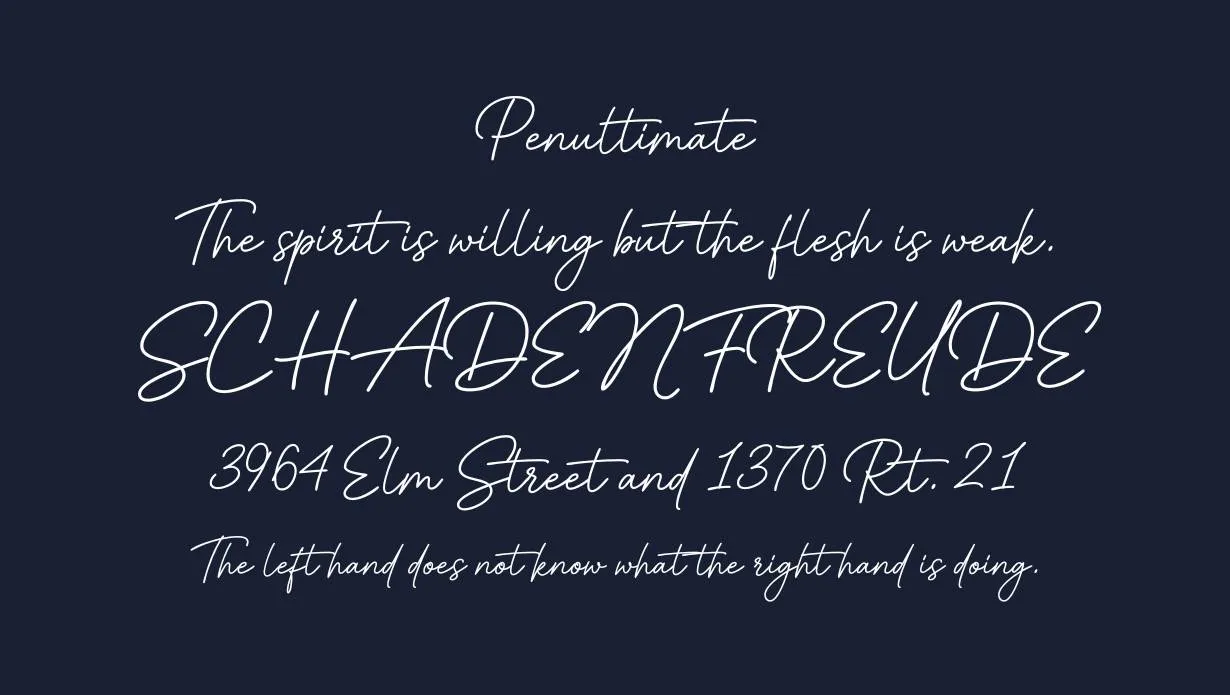
Kallisa Script Font, designed by a talented typographer, is a cursive and elegant script typeface. The designer sought to capture a sense of fluidity and grace in each letterform, resulting in a font that exudes sophistication.
Kallisa is often chosen for projects that demand a touch of femininity or a handwritten feel. Its stylistic elements showcase the designer’s attention to detail, making Kallisa Script Font a favorite among those looking to add a touch of personalized charm to their designs.
View of Kallisa Script Font Family
| Name | Kallisa Script Font |
| Designer | Mulkan Nazir |